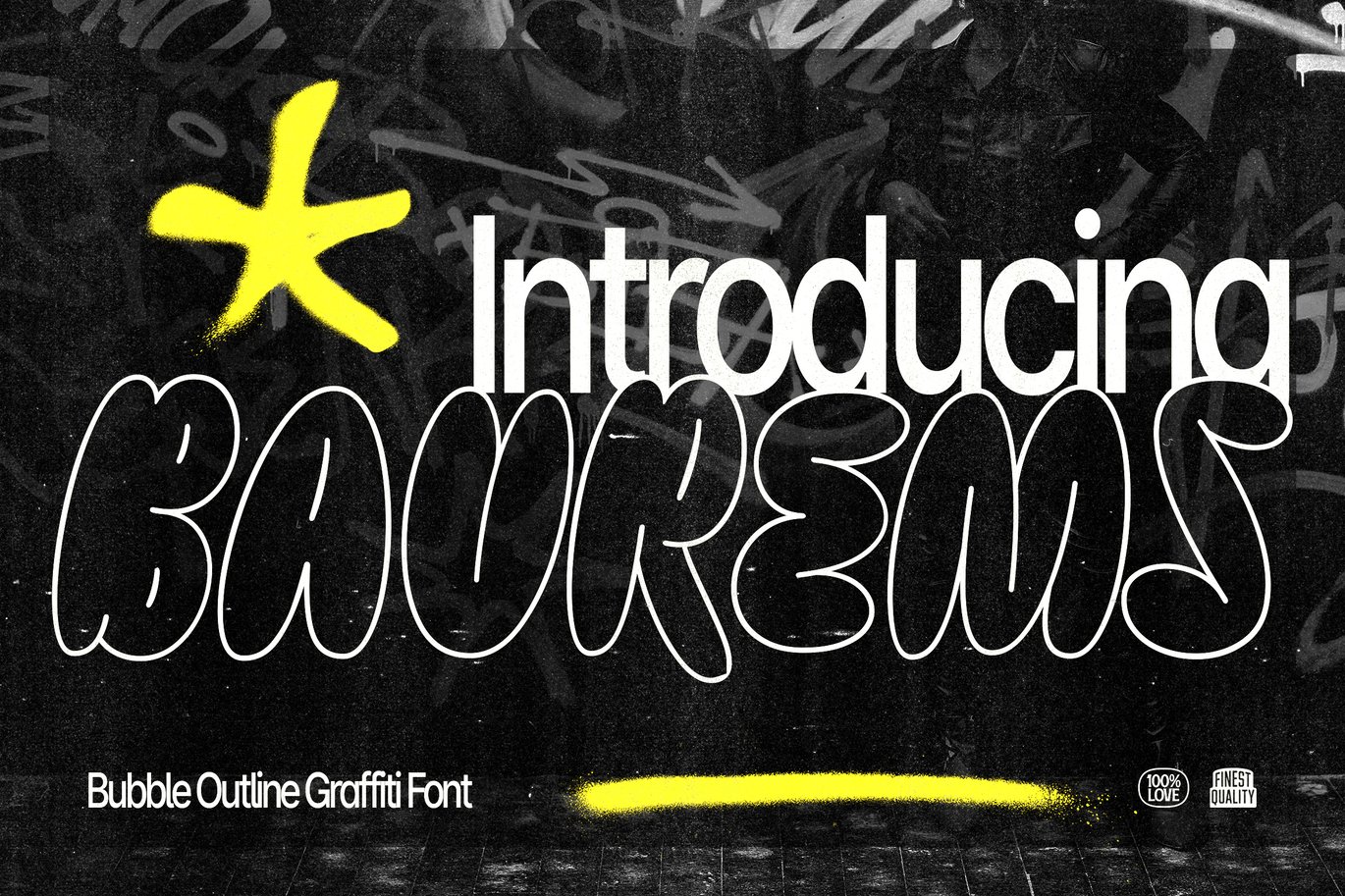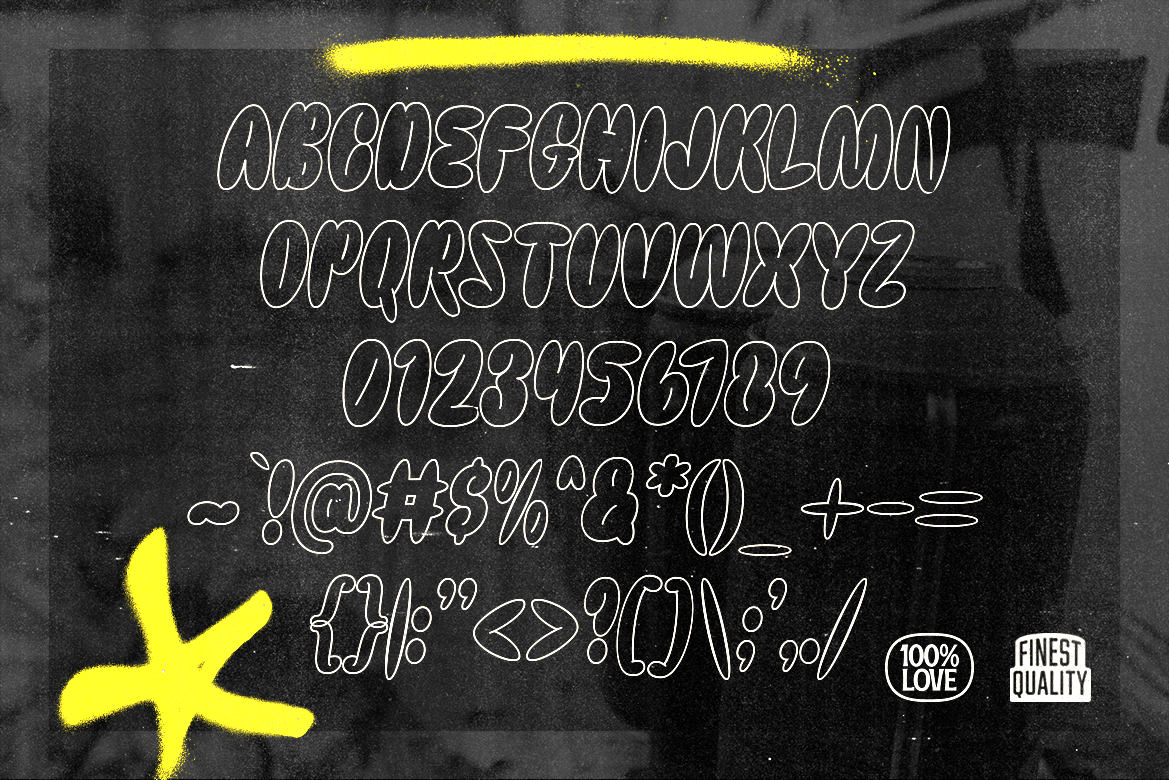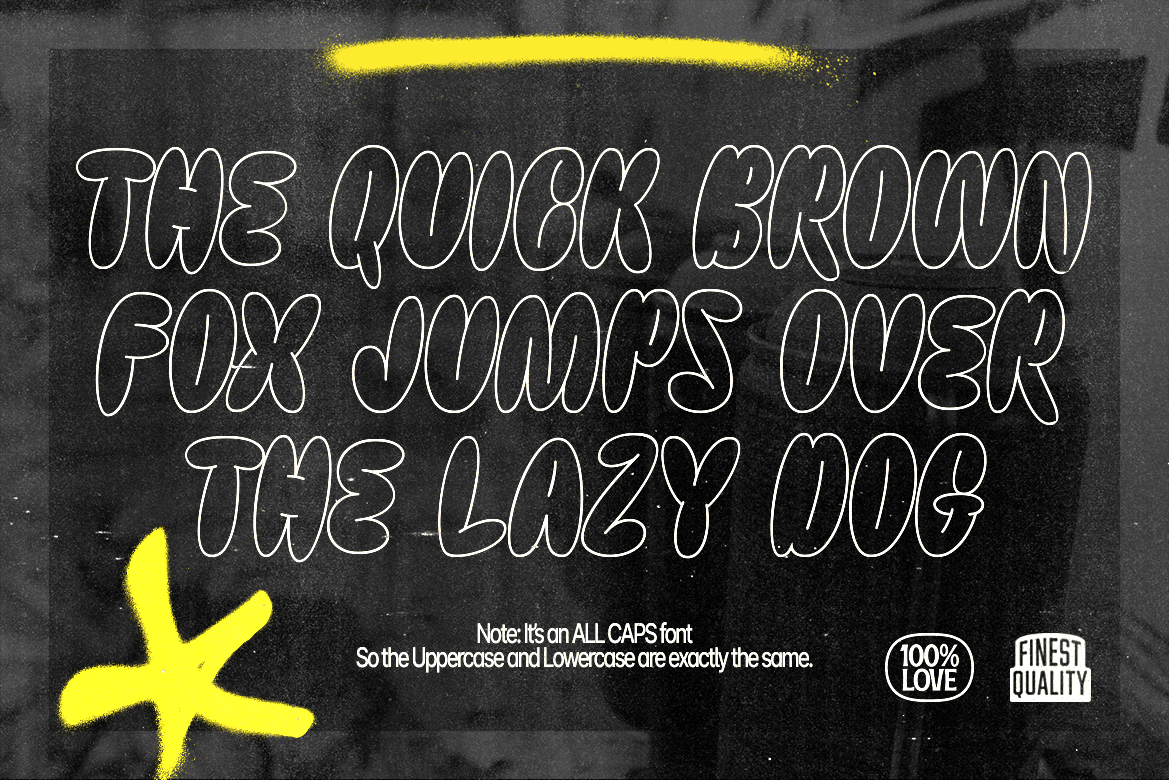
Baurems – Outline Bubble Graffiti Fonts
Baurems is inspired by the trends of the graffiti era back in the 90s and the y2k era. The glory of spray paint and mixed media visuals in the art and graphic design industry.
Perfectly fit for poster design, logo, branding, graffiti visuals, streetwear, urban apparel, clothing, fashion, and many more.